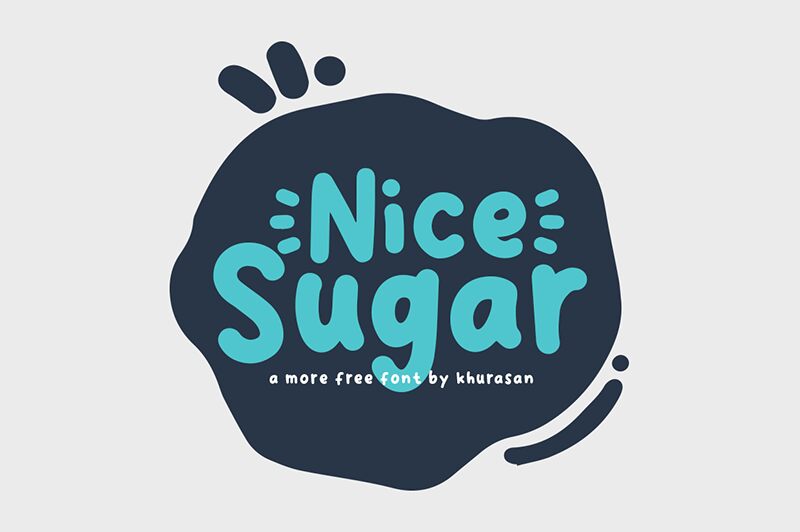
Nice Sugar
Welcome to the playful world of Nice Sugar, a bold and whimsical display font designed by Khurasan. Its cartoon-style lettering is perfect for adding a touch of fun and personality to your designs. Whether you're creating posters, flyers or social media graphics, Nice Sugar is sure to catch the eye and make your message pop. This font is suitable for children's book covers, branding campaigns aimed at millennials, coffee shops and candy stores' logos, or even comic strips. Let your creativity run wild with Nice Sugar!